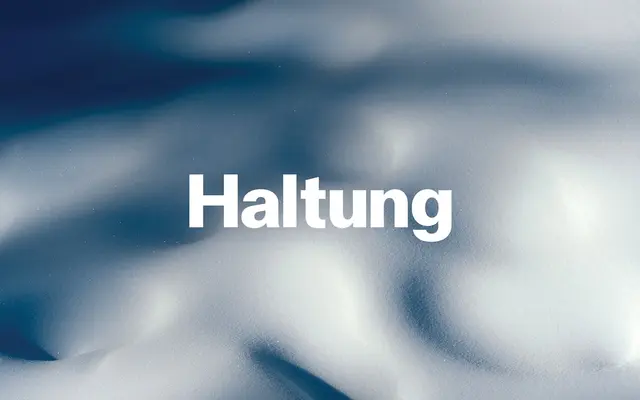
Haltung
A neo-grotesque rooted in the Basel school tradition, tracing a lineage from Walter Käch through Univers and Emil Ruder's students.
Designed by Joe Moore and mastered by Tiny Type Co., Haltung takes its name from Ernst Schmid's monograph 'Gestaltung ist Haltung' (Design is Attitude), framing the typeface as a conceptual bridge between three generations of Swiss typographic thinking. Seven weights from Light to Extrabold, each with a matching italic, produce 14 styles with the open, airy quality the foundry associates with its source material. The result sits between the warmth of mid-century Swiss grotesques and the demands of contemporary typographic practice.
Haltung is explicitly described as a neo-grotesk typeface, drawing directly from the Basel school tradition, Walter Käch's lettering and Univers, placing it squarely in the neo-grotesque sans-serif lineage.